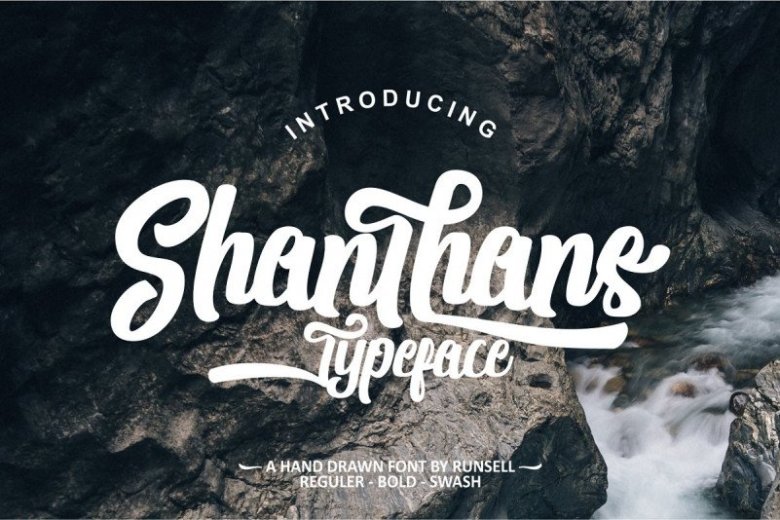
Shanthans Script Font
Hello guys. This is a hand drawn font by Runsell Studio, You can see in the presentation picture above, It’s looks stylish on design projects. It’s perfect for all things design! Introducing Shanthans Font. It’s modern script. It suitable for branding, tshirt, logotype, mug, quotes, blog design, modern advertising design, invitation, Home decor, Book/Cover Title, special events, movie poster, instagram display, album cover, any handmade vintage type needs and more.